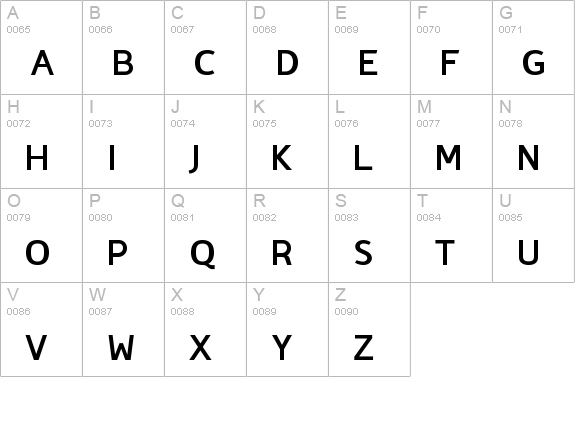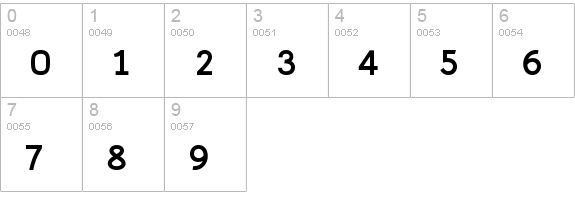
Domestos98-BoldKaps Font Details
The Domestos98-BoldKaps font exudes an air of boldness and modernity, making it the perfect choice for projects that require a strong and impactful visual presence. Its unique design features sharp edges and clean lines, giving your text a commanding and confident appearance. Whether used for headlines, logos, or branding materials, this font is sure to make a statement. Best of all, the Domestos98-BoldKaps font is completely free to download at FontsMarket.com. This means you can elevate your designs without any additional cost, making it a valuable resource for designers, creatives, and anyone looking to add a touch of sophistication to their projects. Don't miss out on the opportunity to enhance your work with the striking Domestos98-BoldKaps font today!